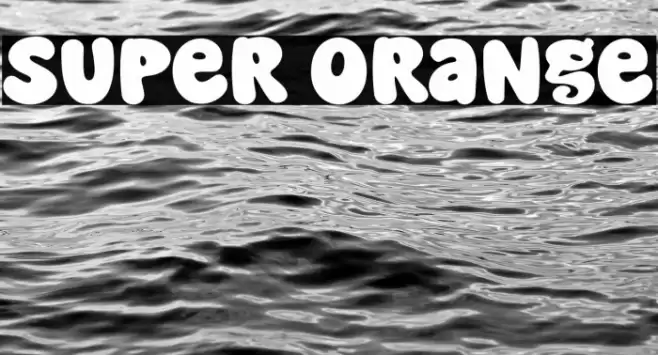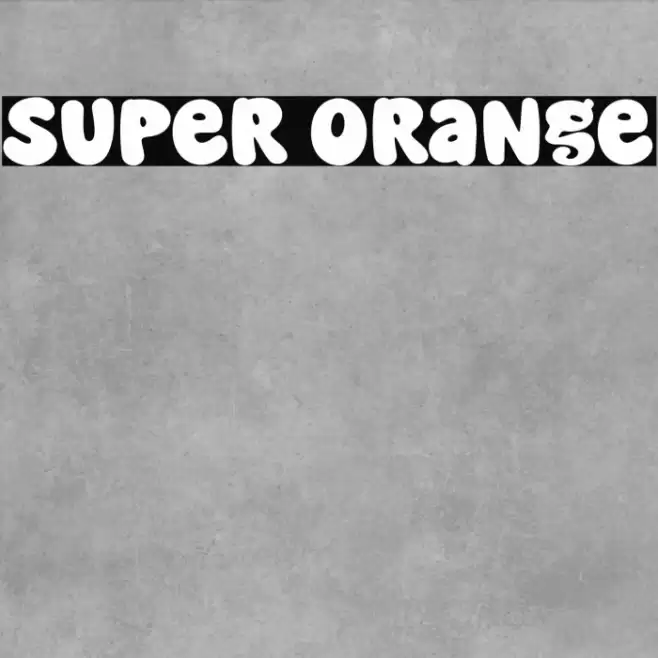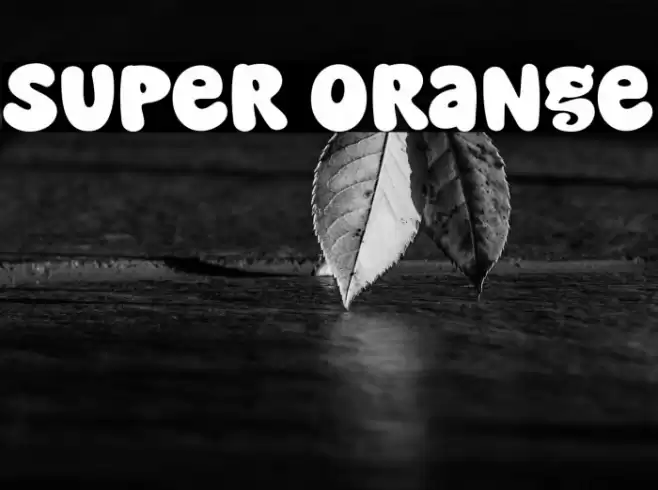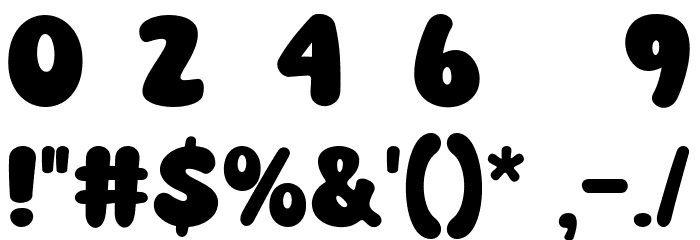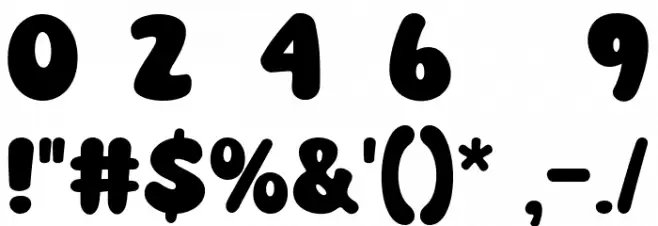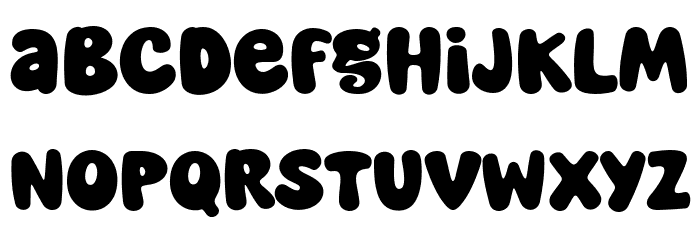
Super Orange Font
Super Orange Description
This playful and bold font features thick, rounded characters that exude a sense of fun and creativity. The letters are uniformly bold with a consistent thickness throughout, giving them a bubbly and cartoonish appearance. The font's design is characterized by its smooth curves and lack of sharp edges, making it approachable and friendly. The numbers and special characters maintain the same playful style, ensuring consistency across all elements. This font is ideal for projects that require a touch of whimsy and energy, such as children's books, playful branding, or eye-catching headlines. Its boldness ensures readability while its unique style adds a distinctive flair.
A playful, bold font with rounded, bubbly characters perfect for fun and creative projects from Uncategorized fonts.
- Font: Super Orange
- Proposed Projects: Ideal for children's books, playful branding, eye-catching headlines, and creative posters.
- Overall Style: Playful, Cartoonish